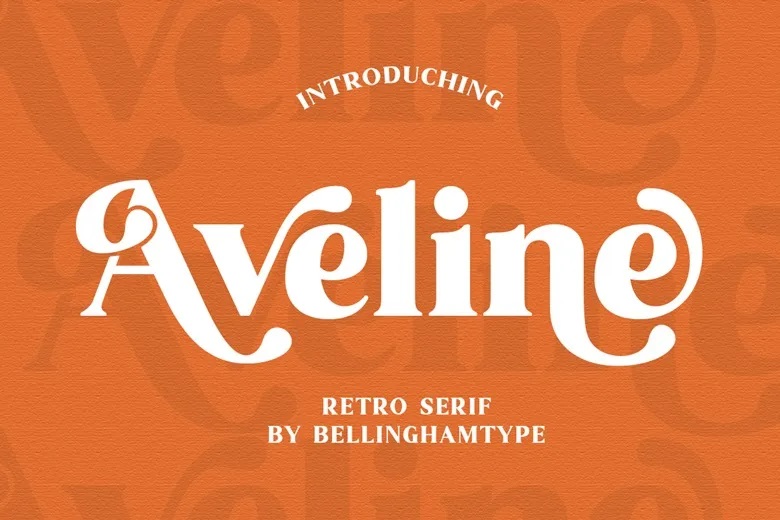
Aveline Serif Font
Aveline is a new modern retro serif font. This font can be best suited for photography, watermark, social media marketing, advertisements, logos and branding, invitations, product designing, labels, stationery, product packaging, special occasions and events and many more.